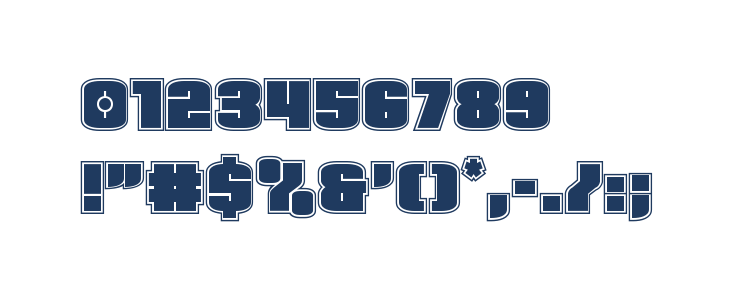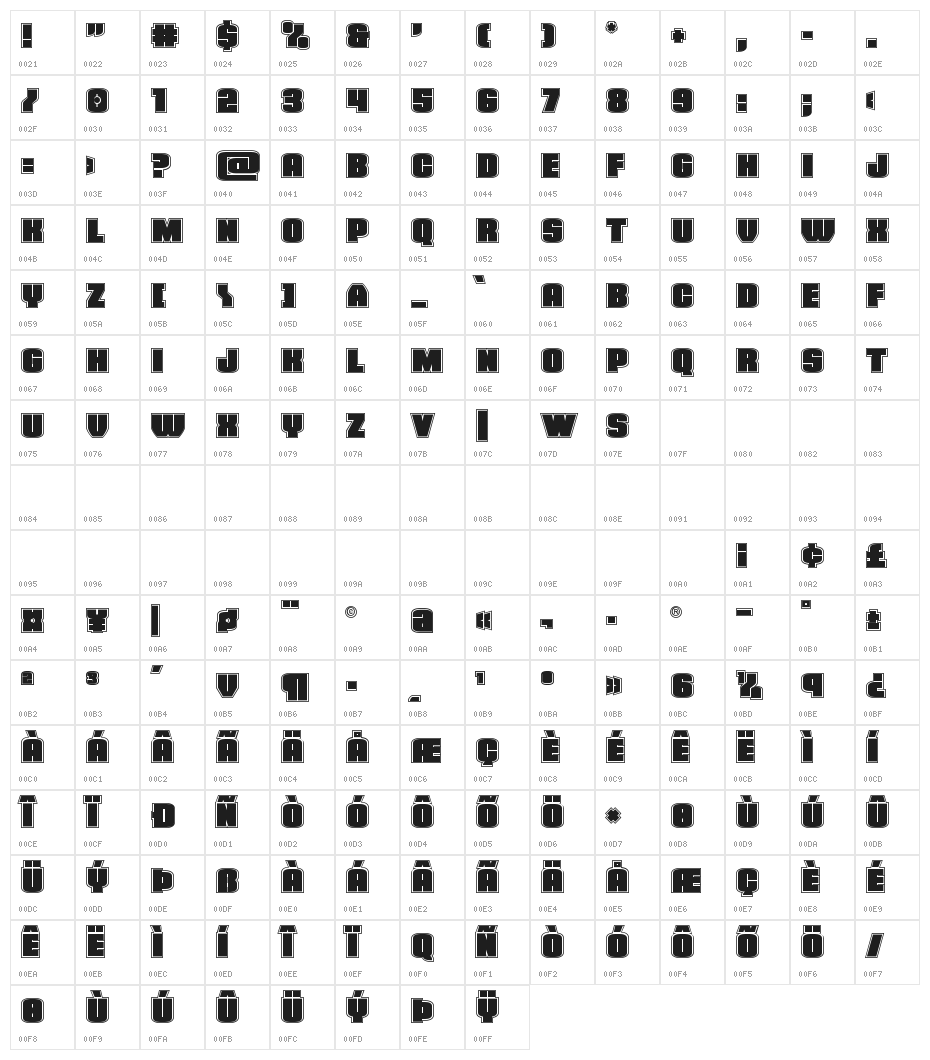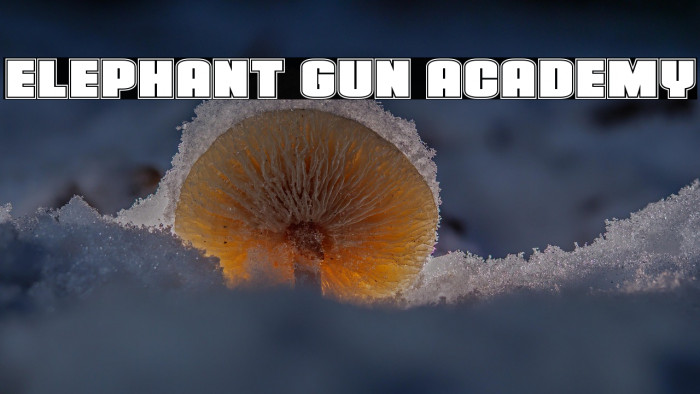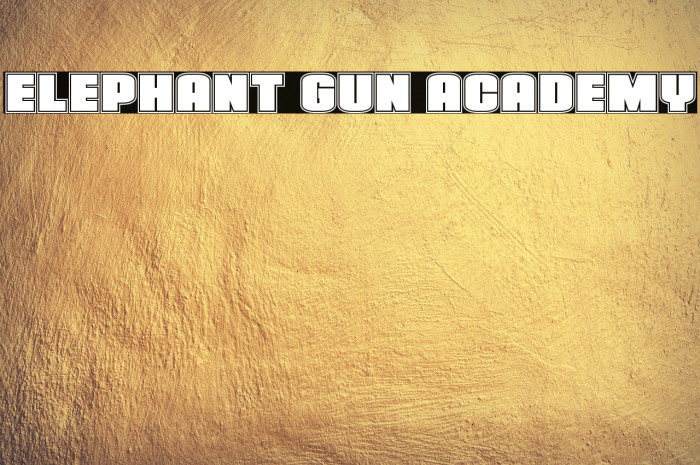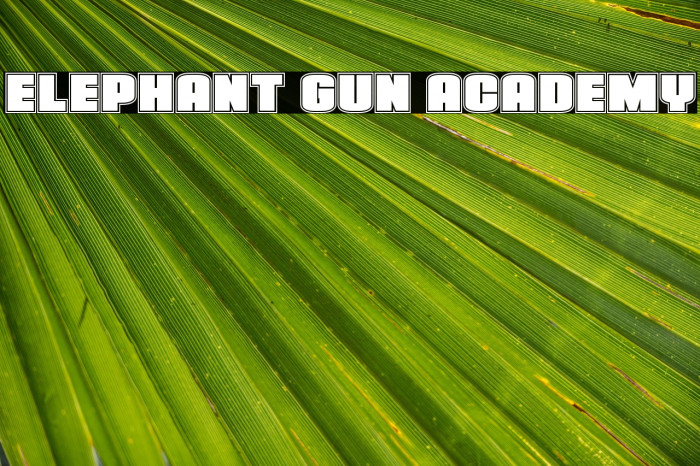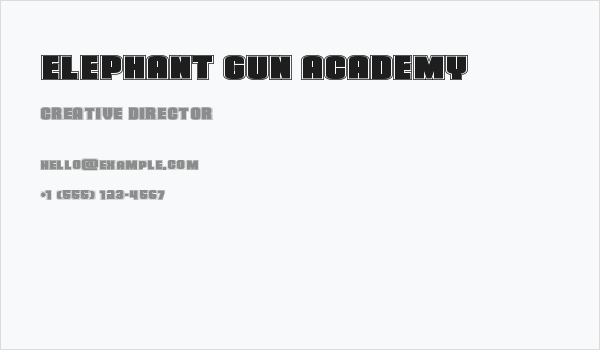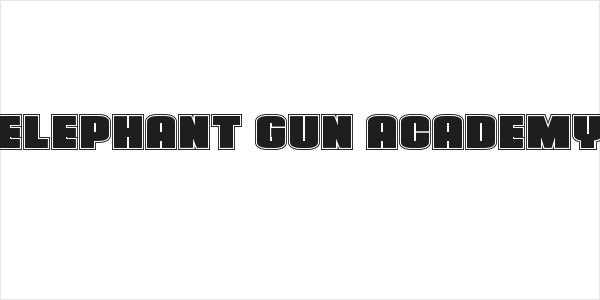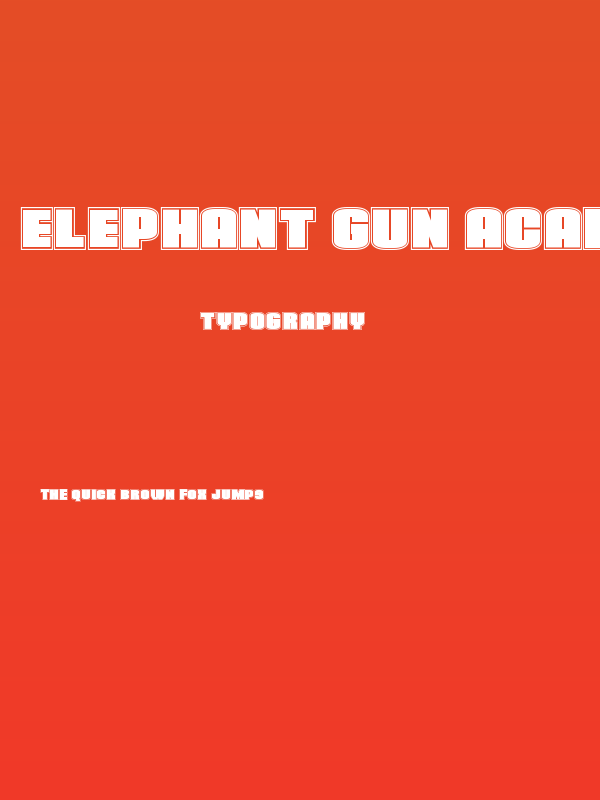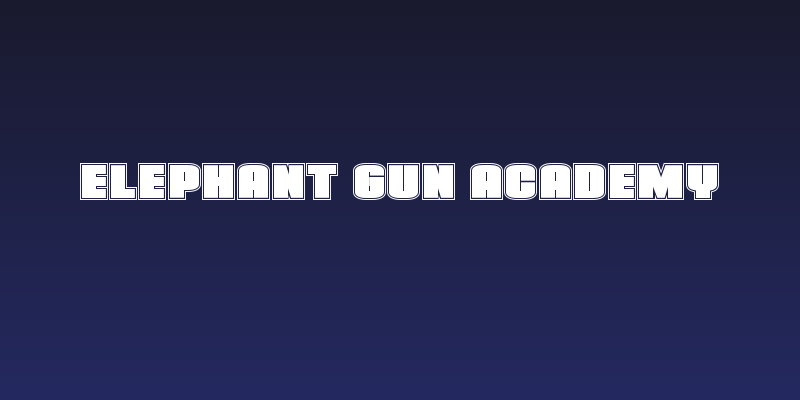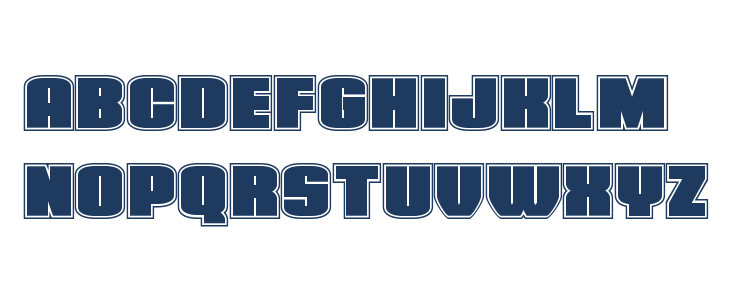
Elephant Gun Academy Font
Elephant Gun Academy Description
This font features a bold, impactful design with a strong presence. Each character is outlined, creating a striking contrast between the thick, solid interior and the surrounding space. The uppercase and lowercase letters maintain a consistent style, emphasizing uniformity and balance. The numerals and special characters follow the same bold aesthetic, ensuring a cohesive look across all text elements. The font's design is reminiscent of vintage or retro styles, yet it maintains a modern edge, making it versatile for various applications.
| Overall Style | Vintage, Modern |
| Proposed Projects | Ideal for branding, poster design, headlines, and any project requiring a strong visual impact. |